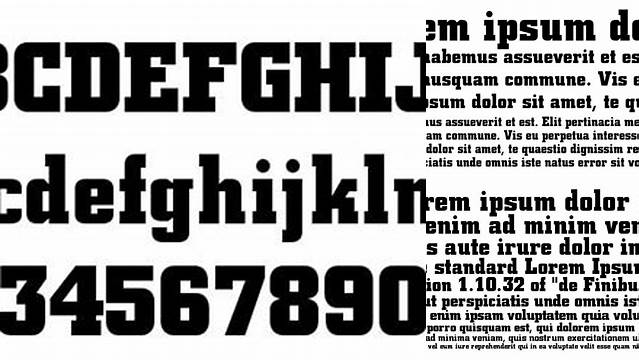
Hey guys! Are you looking to add a bold and distinctive touch to your design projects? Look no further! The Square Slabserif 711 Bold font is a fantastic choice for headings, posters, and any project where you need a strong, legible typeface. This article dives deep into everything you need to know about this awesome font, including its characteristics, uses, and, most importantly, how to download it for free. So, buckle up and let's get started on this fontastic journey!
Okay, so what exactly is Square Slabserif 711 Bold font? Well, the main keyword here is Slabserif, and that's a good place to start. Slab serif fonts are characterized by their thick, block-like serifs (the little feet or strokes at the ends of letters). Think of fonts like Courier New or Rockwell—those are slab serifs. They give off a sturdy, reliable, and sometimes even a vintage vibe. The “Square” part of the name gives you a clue about the overall shape and form of the letters; they have a more geometric and squared-off appearance compared to some other slab serif fonts that might be a bit more rounded. The 711 is likely a designation within a font family or a specific version number, but what’s crucial here is the “Bold” part. This tells us we’re dealing with a heavier weight of the font, which means the strokes are thicker, making it even more impactful. The Square Slabserif 711 Bold font is an excellent choice for grabbing attention. Think about using it for headlines, posters, and branding materials where you really want to make a statement. Its legibility is also a key feature, especially in its bold form. The strong, clear letterforms make it easy to read, even at a distance or in smaller sizes. This makes it a versatile option for a range of projects, from web design to print materials. When you're choosing a font, it's not just about what looks cool, though that's definitely part of it. It's also about how the font makes your message feel. A font can be fun, serious, elegant, or modern, and the Square Slabserif 711 Bold has a particular personality. It's got a bit of a retro feel, but its clean lines also give it a contemporary edge. It’s strong without being overly aggressive, and it’s readable without being boring. This font can bring a touch of authority and clarity to your work, making it a solid choice for projects where you want to convey a sense of confidence and professionalism. Knowing the characteristics of a font like Square Slabserif 711 Bold helps you make informed decisions about your design choices. It's not just about slapping any font on your project; it's about choosing the one that best represents your message and your brand. So, keep these things in mind as we delve further into where you can use this font and, of course, how to get your hands on it for free!
So, let's break down the key characteristics of the Square Slabserif 711 Bold font even further. Understanding these features will help you appreciate its unique style and how it can enhance your design work. First off, the most obvious characteristic is the boldness. This isn’t just a slightly thicker version of a regular font; it’s a full-on, in-your-face bold. The heavy strokes of the letters make it incredibly eye-catching, perfect for situations where you need to make a statement. Think of headlines, titles, or even logos where you want to leave a lasting impression. The boldness ensures your text stands out and grabs attention, even from a distance. Then, there's the slab serif aspect. As we mentioned earlier, slab serifs are those blocky, rectangular serifs at the ends of the strokes. These serifs give the font a grounded and substantial feel. They also contribute to the font's legibility, as they help guide the eye along the text. In the case of Square Slabserif 711 Bold, the serifs are particularly prominent and squared off, which adds to its geometric and modern aesthetic. The “square” element in the name is a big clue. The letterforms themselves tend to have a more angular and geometric construction compared to rounder slab serifs. This squared-off shape lends the font a strong and structured appearance. It’s not overly playful or whimsical; it's got a sense of authority and stability. This makes it a great choice for projects that need to convey a sense of trustworthiness and professionalism. Another crucial characteristic is its legibility. Despite its bold weight and squared-off serifs, Square Slabserif 711 Bold remains highly readable. The clean lines and well-defined letterforms ensure that the text is easy to decipher, even in smaller sizes. This is super important because a font can look amazing, but if people can't read it, it's not doing its job. The versatility of Square Slabserif 711 Bold is also worth highlighting. While it’s fantastic for headlines and titles, its legibility means you can also use it for body text in certain situations. It works well for shorter blocks of text, captions, or callouts where you want to add emphasis. You can pair it with a more delicate sans-serif font for body text to create a visual contrast that’s both striking and readable. Considering its characteristics, the Square Slabserif 711 Bold font often evokes a sense of retro modernity. It has a vintage feel reminiscent of old-school advertising and signage, but its clean lines and geometric shapes also give it a contemporary edge. This makes it a fantastic choice for projects that aim to blend the classic with the modern. Understanding these key characteristics helps you appreciate the unique qualities of the Square Slabserif 711 Bold font and how it can elevate your design projects. It’s a font with a strong personality, offering a blend of boldness, legibility, and retro-modern charm.
Alright, so now that we know what makes Square Slabserif 711 Bold font tick, let’s talk about where it really shines. Knowing the ideal uses for a font is crucial because you want to make sure it aligns with the message you're trying to convey. First and foremost, this font is a headline hero. Its bold weight and striking slab serifs make it perfect for grabbing attention in titles and headings. Imagine using it for a poster, a website header, or even a magazine cover. The strong, clear letterforms ensure that your message jumps off the page or screen and commands attention. Think about how effective a bold headline can be in capturing a reader's interest – that's where Square Slabserif 711 Bold truly excels. Moving on from headlines, this font is also an excellent choice for branding materials. If you're looking to create a logo that exudes strength, stability, and a touch of retro flair, this could be your go-to font. Its distinctive style ensures your brand stands out, and its legibility guarantees your name is easily readable. Consider using it for business cards, letterheads, and other corporate materials to create a cohesive and impactful brand identity. In the realm of advertising, Square Slabserif 711 Bold can be a game-changer. Its bold nature is ideal for creating eye-catching ads that grab the viewer's attention. Whether it's a print ad, a social media graphic, or even a billboard, this font can help your message cut through the noise. Its retro-modern vibe makes it particularly well-suited for campaigns that aim to evoke a sense of nostalgia while still feeling fresh and contemporary. When it comes to posters and flyers, this font is a natural fit. Its bold weight ensures that the message is visible from a distance, making it perfect for event promotions, announcements, or any other situation where you need to get the word out. The squared-off serifs add a touch of structure and authority, making your posters look professional and impactful. For print materials in general, Square Slabserif 711 Bold is a solid choice. Think about using it for book covers, magazine layouts, or even product packaging. Its legibility makes it suitable for both headlines and shorter blocks of text, while its distinctive style adds a touch of personality to your design. In the digital world, this font can also shine. It works well for website headers, banners, and social media graphics. Just be mindful of the overall design and ensure that it pairs well with the other fonts and elements on your page. The goal is to create a visually appealing and cohesive design that effectively communicates your message. In essence, Square Slabserif 711 Bold is a versatile font that can be used in a wide range of design projects. Its boldness, legibility, and retro-modern charm make it a fantastic choice for anything that needs a touch of strength and character. From headlines and logos to posters and advertising, this font is sure to make a statement.
So, you've got your hands on the Square Slabserif 711 Bold font – awesome! But having the right font is only half the battle. To really make your designs pop, you need to know how to use it effectively. Let's dive into some tips and tricks for making the most of this bold and versatile typeface. First up, think about hierarchy. Square Slabserif 711 Bold is a font that loves the spotlight, so it’s fantastic for headlines, titles, and headings. Use it to draw the reader's eye and establish a clear visual hierarchy in your design. But remember, too much of a good thing can be overwhelming. Using this font for every single element on your page might make your design feel heavy and cluttered. Instead, reserve it for the most important pieces of text and use a simpler font for body copy. This creates a nice contrast and keeps your design looking balanced. Speaking of contrast, that leads us to font pairing. Choosing the right fonts to pair with Square Slabserif 711 Bold can elevate your design to the next level. Since it’s a strong and bold font, it often pairs well with cleaner, more minimalist sans-serif fonts. Think about pairing it with something like Open Sans, Lato, or Montserrat for body text. This creates a visual balance between the strong headline and the more understated body copy. You can also experiment with serif fonts for a more classic or sophisticated look, but be mindful of maintaining legibility and readability. Don't be afraid to play around with different combinations until you find something that feels just right. Another crucial tip is to consider context. The Square Slabserif 711 Bold has a bit of a retro-modern vibe, so think about how that fits with the overall tone and style of your project. It works great for designs that need to feel strong, confident, and a little bit edgy. If you're going for a super delicate or whimsical feel, this might not be the best choice. Think about your target audience and the message you're trying to convey, and choose your fonts accordingly. White space is your friend! Don't cram too much text into your design. Give your elements room to breathe. Using plenty of white space around your headlines and body copy will make your design look cleaner, more professional, and easier to read. This is especially important when using a bold font like Square Slabserif 711 Bold, which can feel overpowering if it’s surrounded by too much clutter. Color is another powerful tool you can use to enhance your design. Think about how the colors you choose interact with your font. A bold font like Square Slabserif 711 Bold can look fantastic in a strong, contrasting color, but be mindful of readability. Make sure there's enough contrast between your text color and your background color so that your message stands out. Last but not least, don't be afraid to experiment. Design is all about trying new things and pushing boundaries. Play around with different sizes, weights, and styles to see what works best for your project. And most importantly, have fun with it! The Square Slabserif 711 Bold font is a fantastic tool to have in your design arsenal. By following these tips, you can use it effectively to create stunning and impactful designs that grab attention and communicate your message with clarity and style.